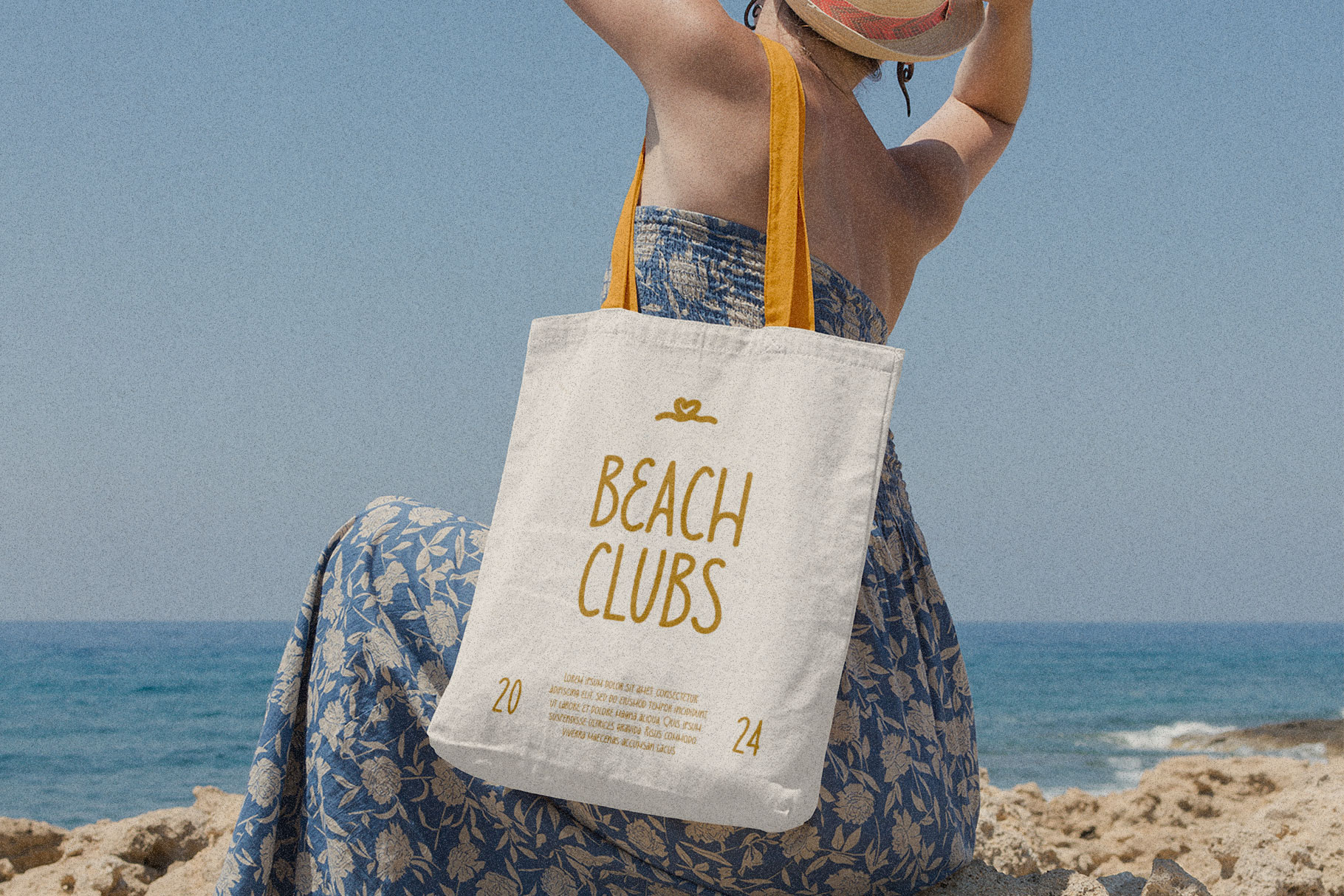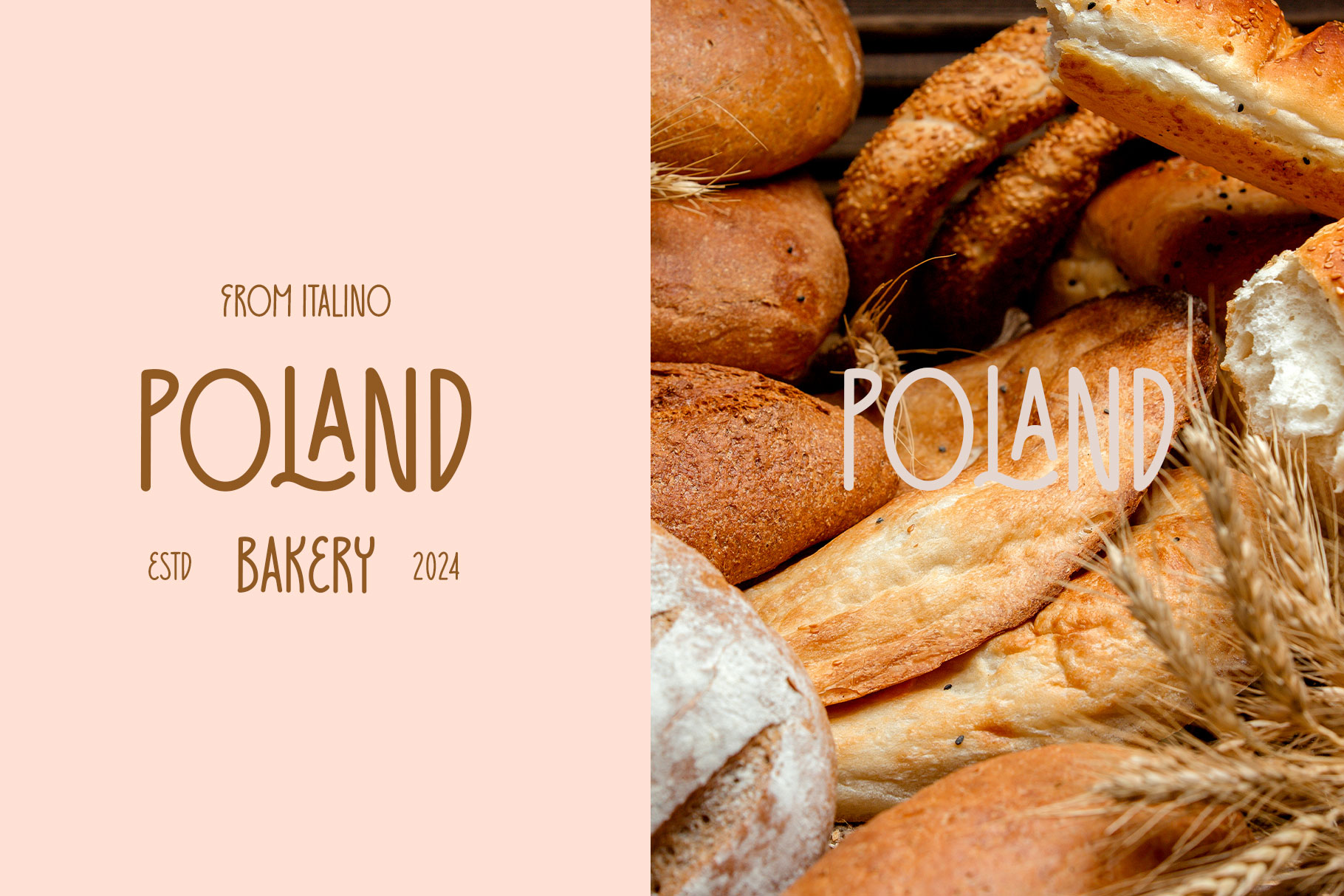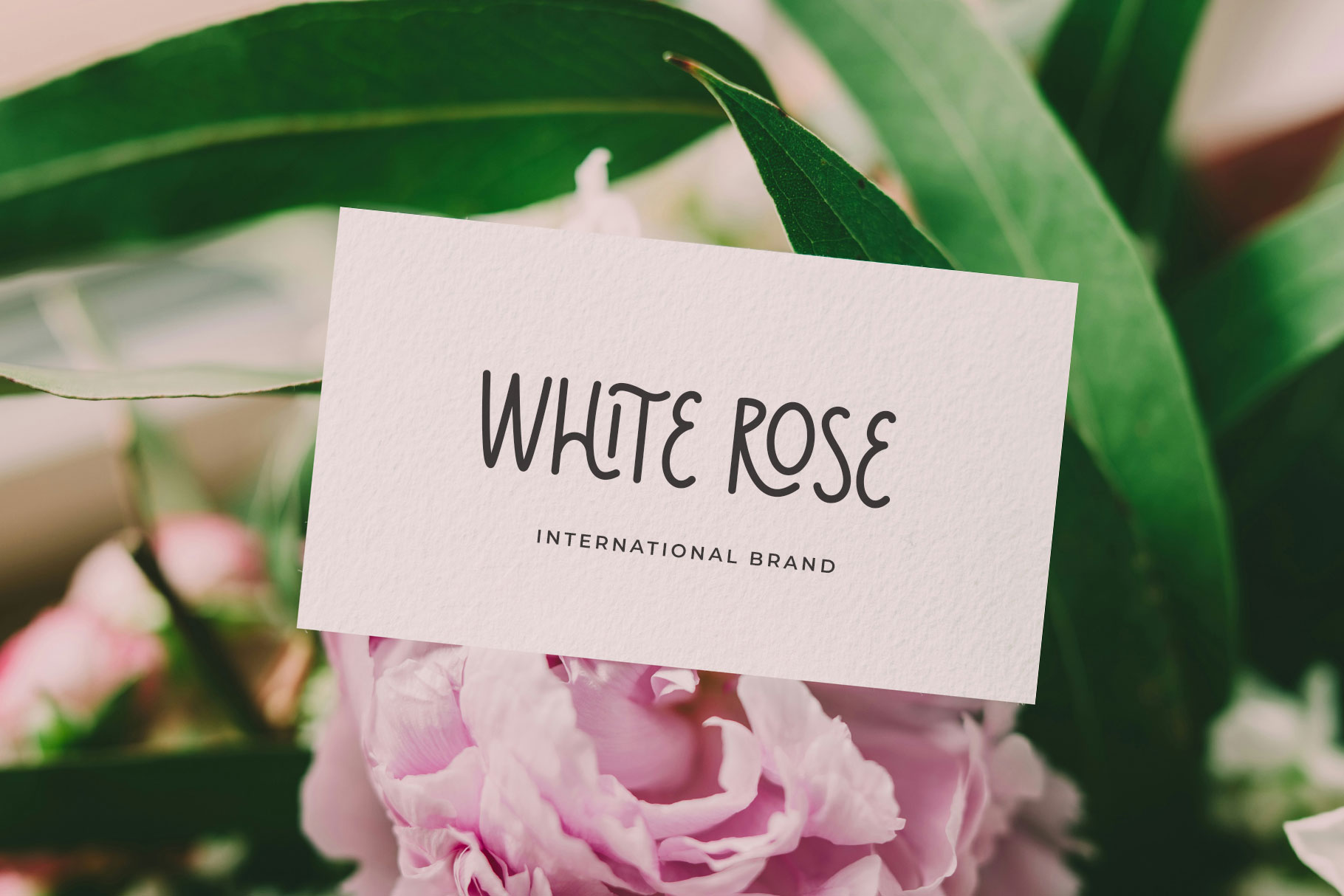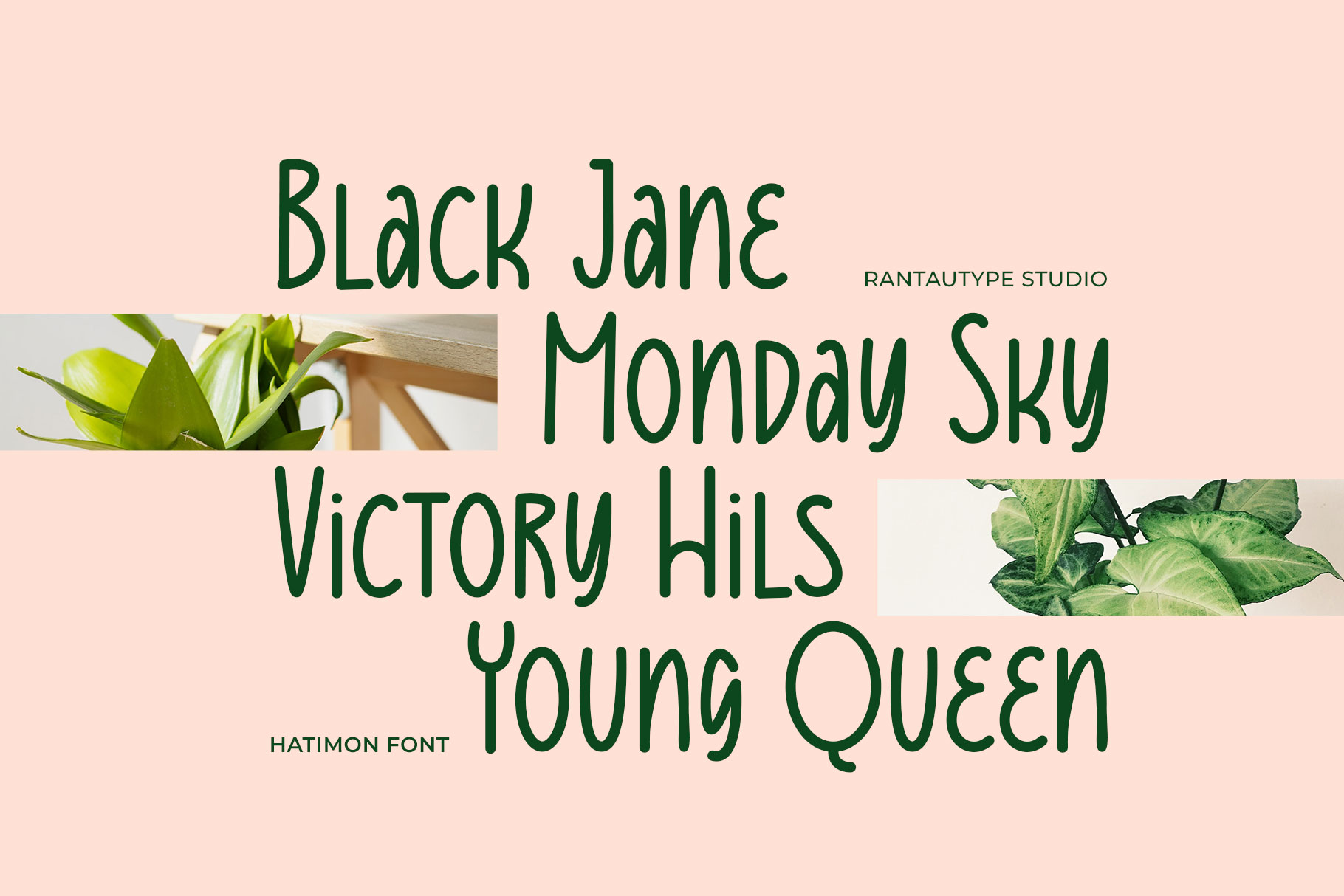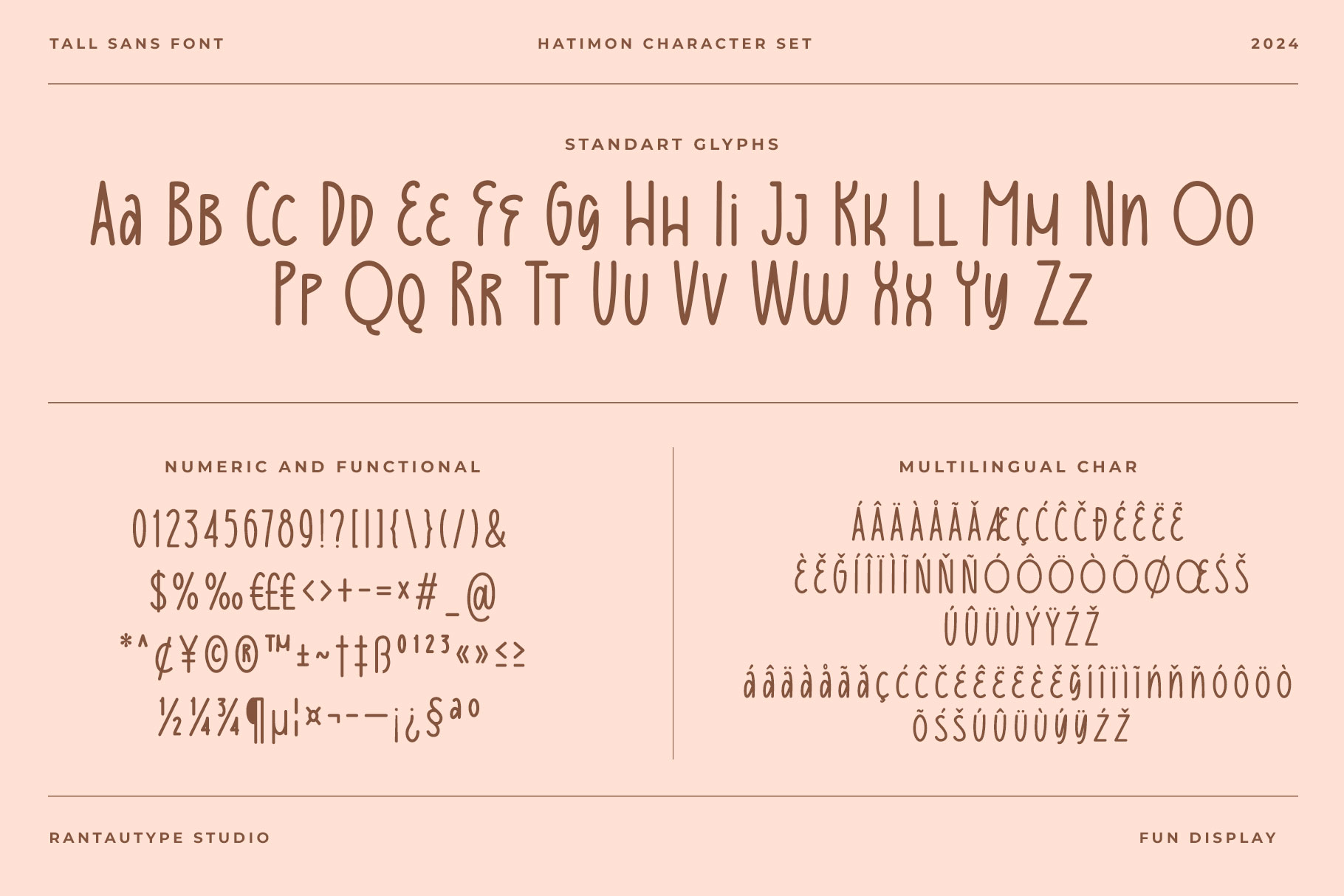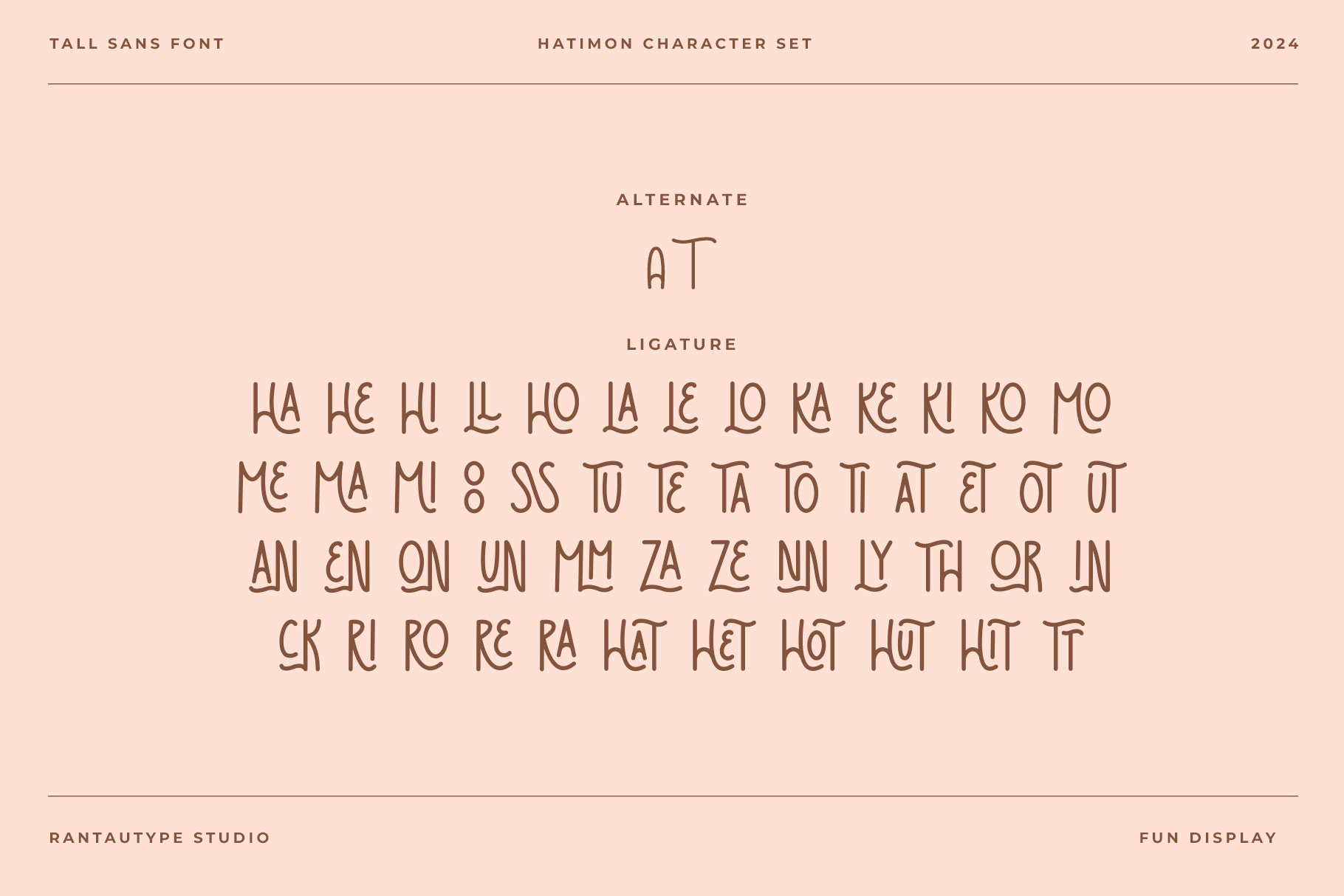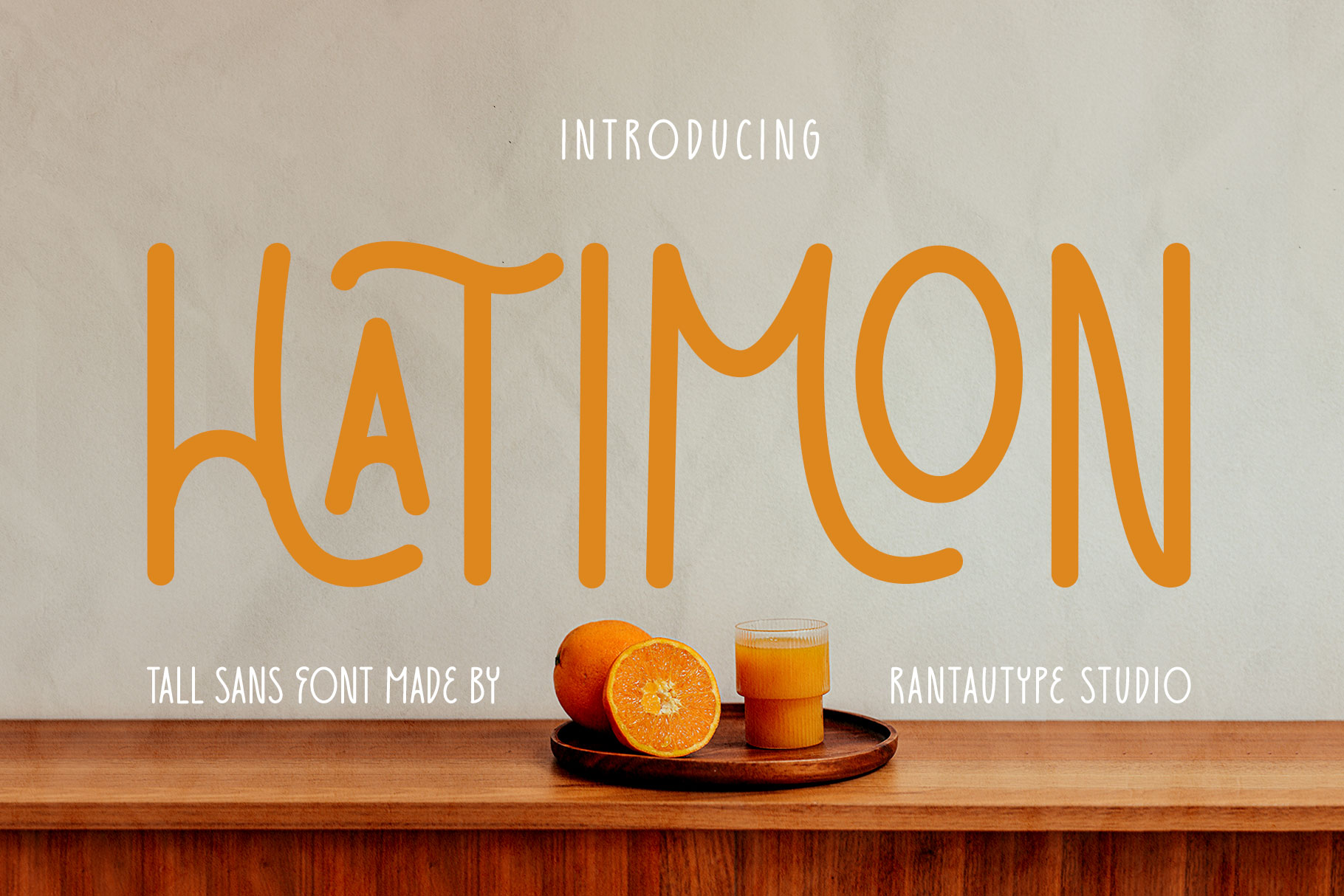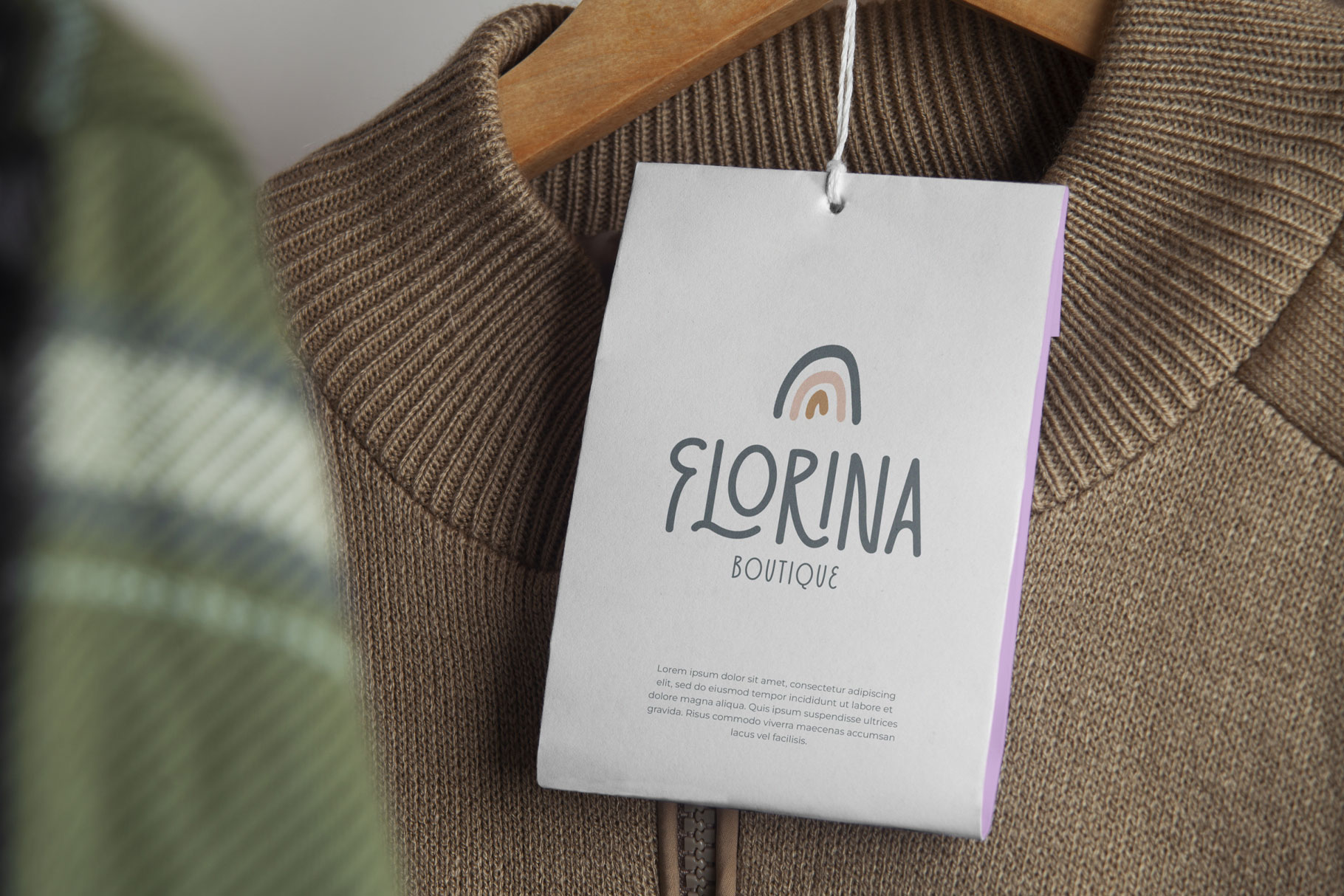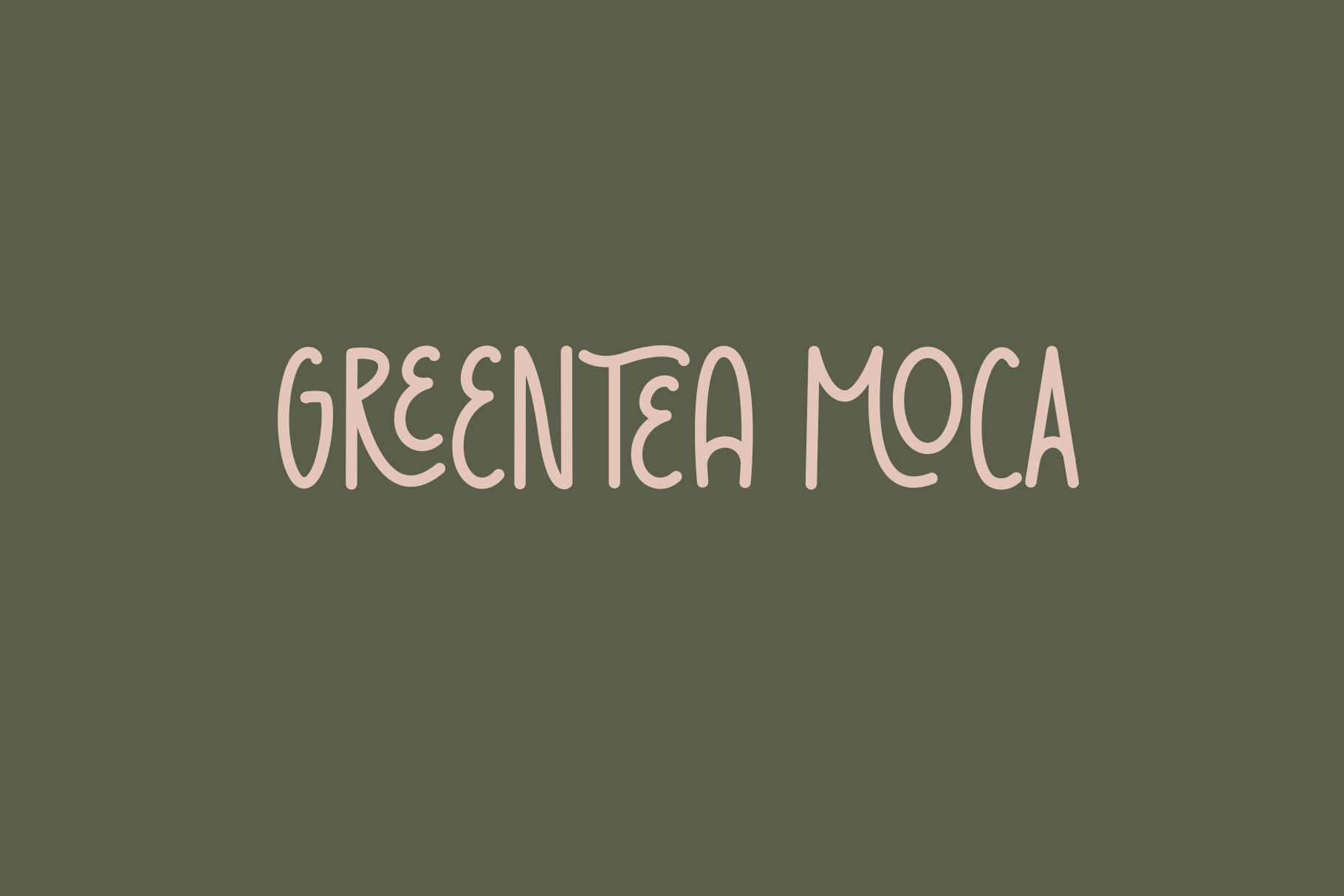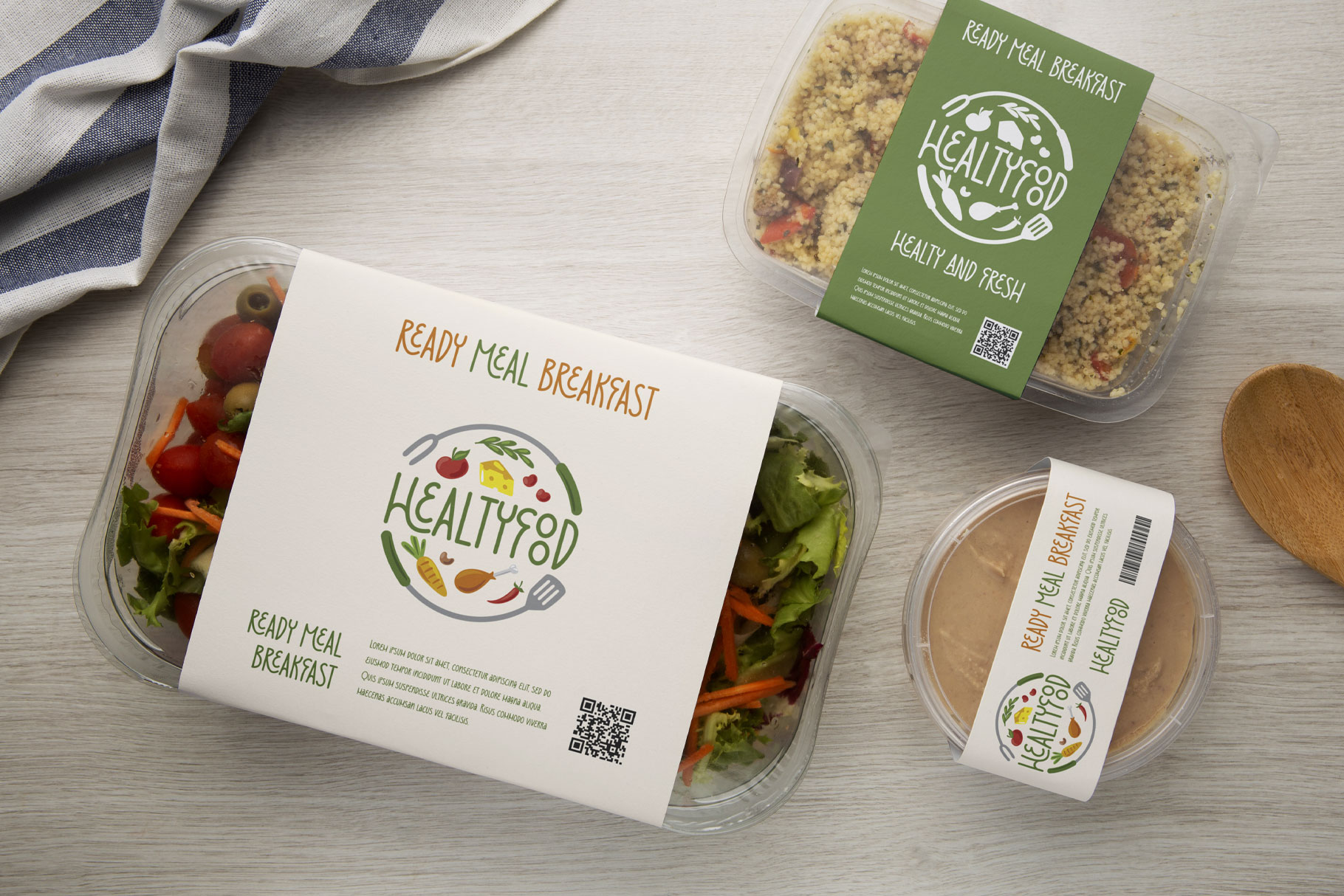
Hatimon
Hatimon is tall clean sans font with smooth rounded edge. Hatimon bring sophisticated of sans font to make it fun and attractive, you also can mix with fun ligature to make creative project.
Hatimon is a perfectly choice for any creative endeavor, chic, lifestyle design such as logotype, advertisements, watermark on photography, stationery, branding project, display and magazine, invitation, corporate brand, product design, label, business project and many other project with fun touch.